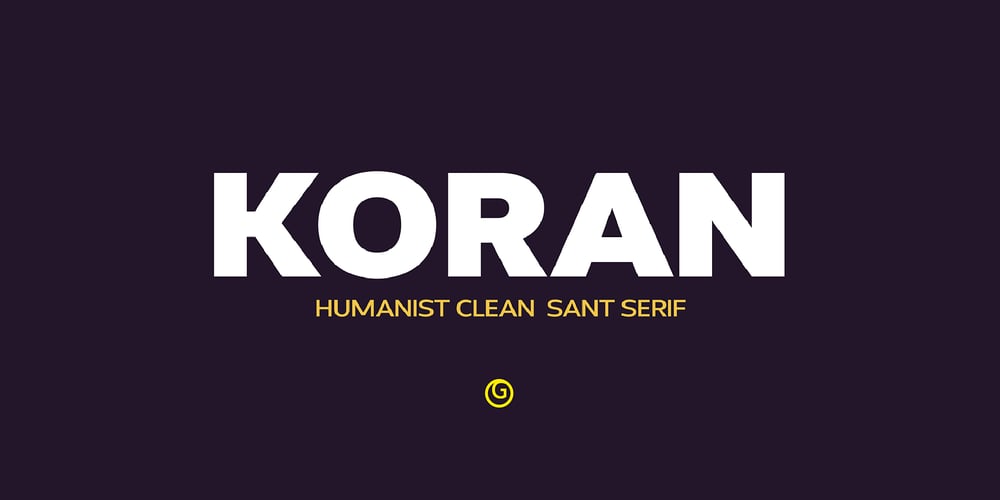
Koran Font Family was designed by Bustami Harun and published by Genesislab. Koran contains 18 styles and family package options. Koran Sans is a clean family sans humasnist style that is absolutely perfect for editorial headlines. The complete font family of upright and italic letters is easy for you to use 18 styles in many projects. This font is complete with symbols and multilingual. This font style is bold, bold, and sleek, making it perfect for editorial, web, posters, t-shirts, and magazine covers. . etcIncluding:Uppercase Letters, Numbers, Punctuation & Symbols.Multilingual SupportKoran sans exudes character but is still useful thanks to its restrained geometric styling and modern construction.